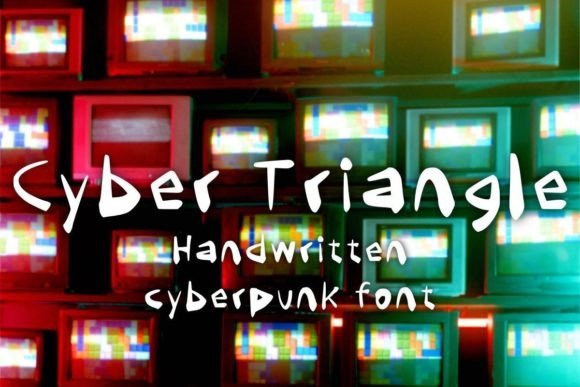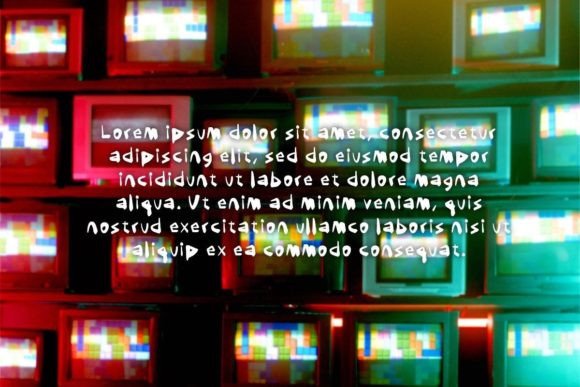
Unleash Your Creativity with the Cyber Triangle Font
Have you ever been stuck on a design project, desperately searching for that one element to bring your vision to life? The blank page stares back, taunting you with its emptiness, until suddenly – a spark of inspiration strikes. You envision a futuristic cityscape, neon lights illuminating the dark night, and the hum of technology pulsating through the air. That’s when you know it’s time to break out the big guns, and for designers, that means the Cyber Triangle Font.
This bold, quirky display font is inspired by the edgy world of cyberpunk technology. Its standout style is perfect for adding a dash of grit and edge to any project. Whether you’re creating a futuristic sci-fi novel, designing a cyberpunk-themed video game, or simply want to add some visual interest to a blog post, the Cyber Triangle Font is the perfect tool for unleashing your creativity and making a lasting impression.
Cyber Triangle Font Key Features
- Font Family: Cyber Triangle Font offers a unique, futuristic style with a wide range of glyphs, including uppercase, lowercase, numbers, and symbols.
- Character Set: The font includes a comprehensive set of characters, covering multiple languages, including Latin, Cyrillic, and Greek scripts.
- Size: The font comes in a single weight, ideal for digital displays and on-screen use, with a size range of 12-72 points.
- Resolution: Optimized for high-resolution displays, with clear rendering at resolutions up to 300 DPI.
- Unique Characteristics: The font features a distinctive, geometric shape with a strong, modern aesthetic, making it perfect for futuristic and tech-related designs.
Cyber Triangle Font Review
Overall, I’d say the Cyber Triangle Font is a unique and eye-catching addition to any design project. ✨ It’s a futuristic font that’s perfect for sci-fi or tech-related themes. The font is highly customizable, with a wide range of options for adjusting the shape, size, and color of the characters.
One of the standout features of this font is its versatility. It can be used for both headings and body text, and it looks great in a variety of contexts. ✨ The font also includes a range of international characters, making it a great choice for projects that need to reach a global audience.
- Unique and eye-catching design
- Perfect for sci-fi or tech-related themes
- Includes international characters
- May be difficult to read in small sizes
- Can be overwhelming in large blocks of text
- May not be suitable for all design styles
- Some users may find the font too futuristic or gimmicky
Overall, I’d recommend the Cyber Triangle Font for designers who are looking for a unique and eye-catching font for their next project. However, it’s not for every design style, and users should be aware of its limitations.
Tips for Getting the Most Out of the Cyber Triangle Font
To get the most out of the Cyber Triangle Font, consider the following tips:
- Use the font in conjunction with other futuristic or sci-fi elements to create a cohesive look.
- Use the font in combination with other design elements, such as shapes and graphics, to create a dynamic design.
The Cyber Triangle Font is commonly used in:
- Science fiction and futuristic designs.
- Technology and gaming designs.
- Abstract and